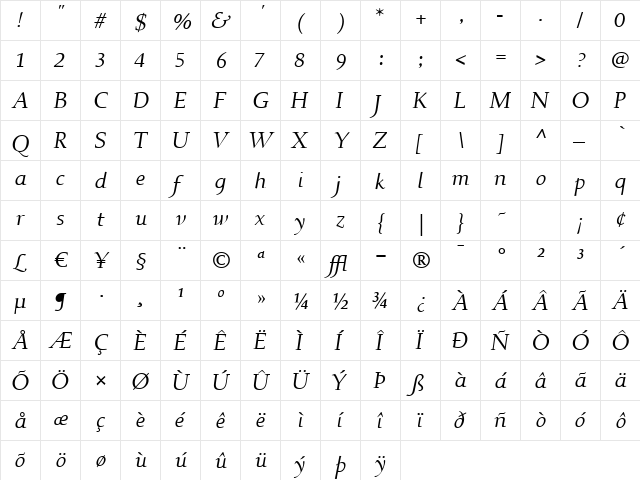
BelenItalic Regular
Design Context for BelenItalic Typeface
BelenItalic takes a measured approach to typography — its balanced proportions and neutral character make it a reliable workhorse for both digital and print work. The dynamic lean of this cut emphasises speed and emphasis in any layout.
Pro Tip: Try BelenItalic for annotation and caption copy alongside an upright companion — the contrast in angle creates a dynamic but ordered typographic system.